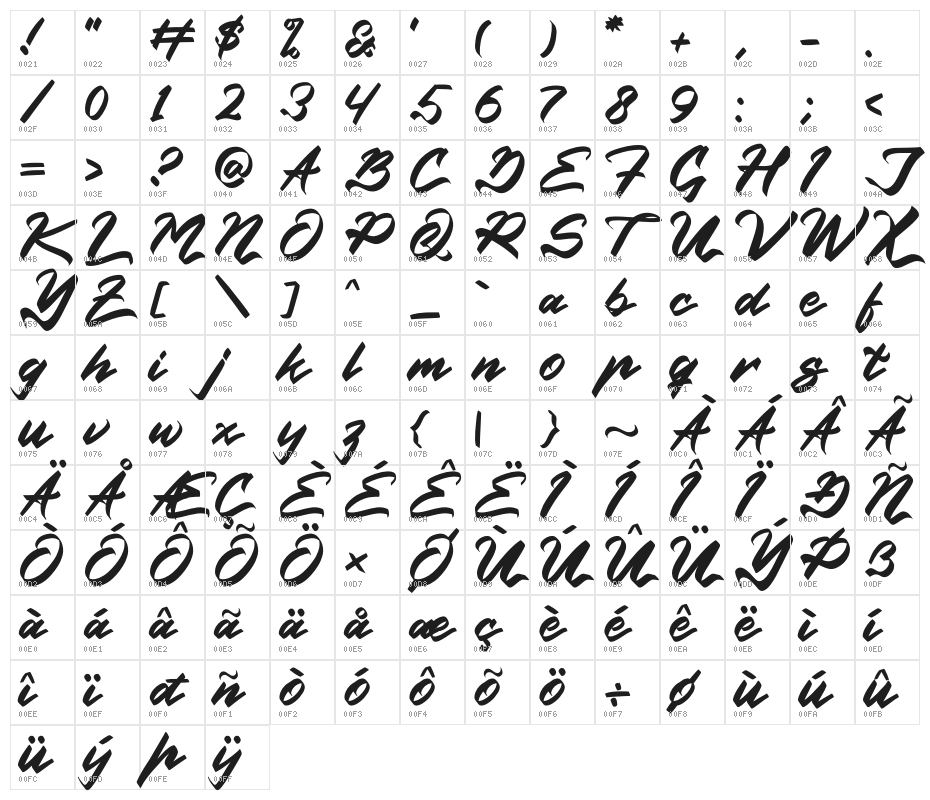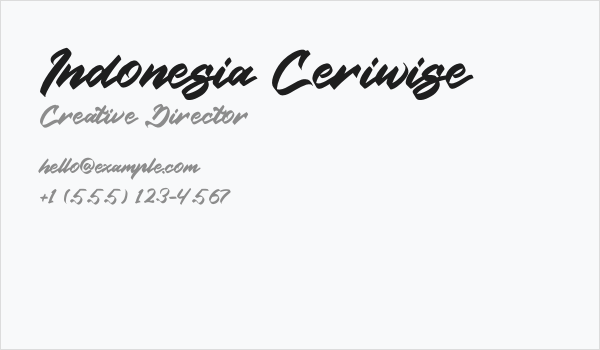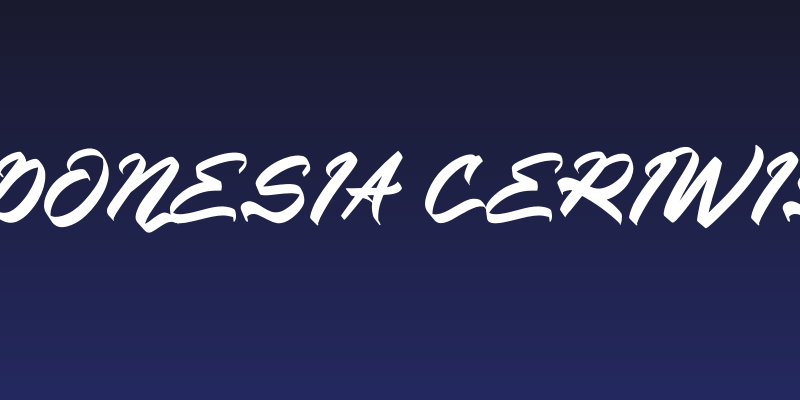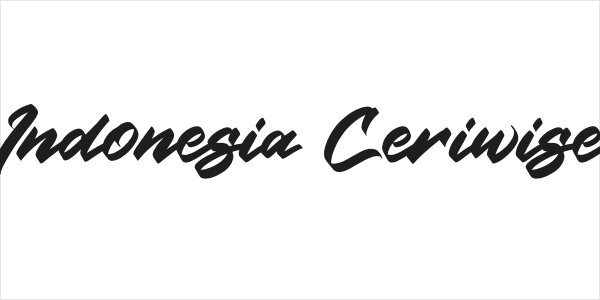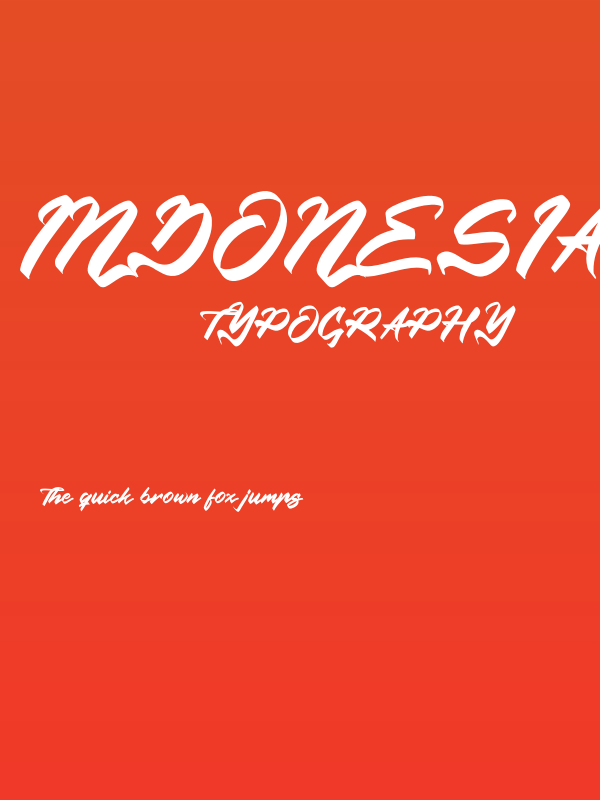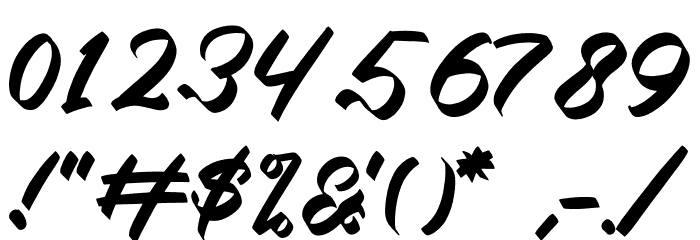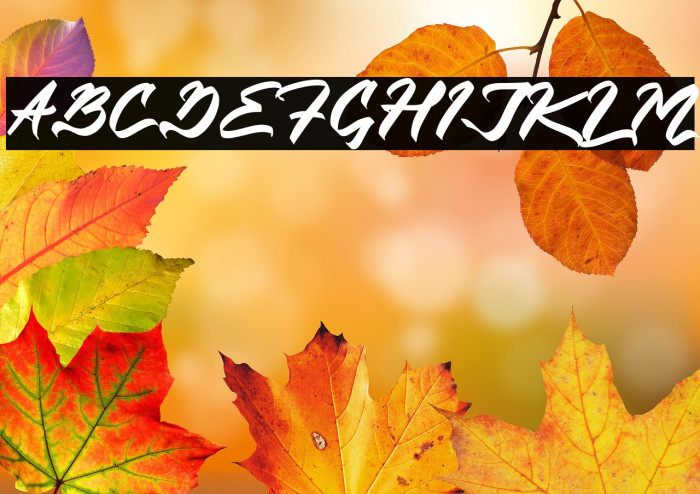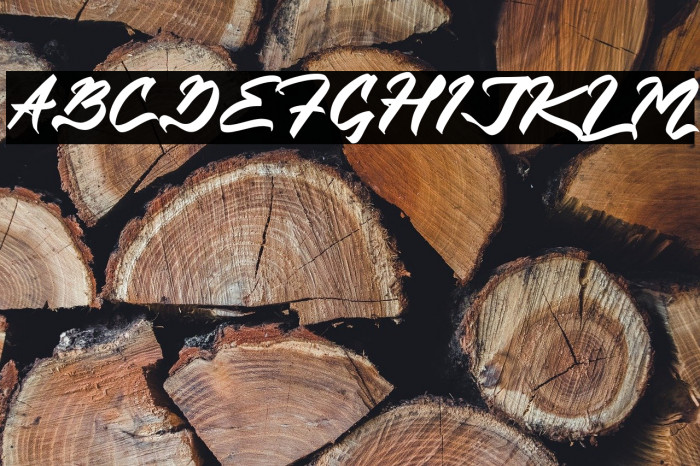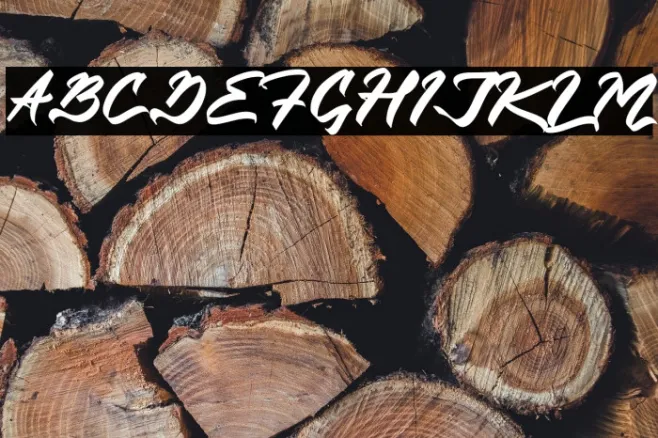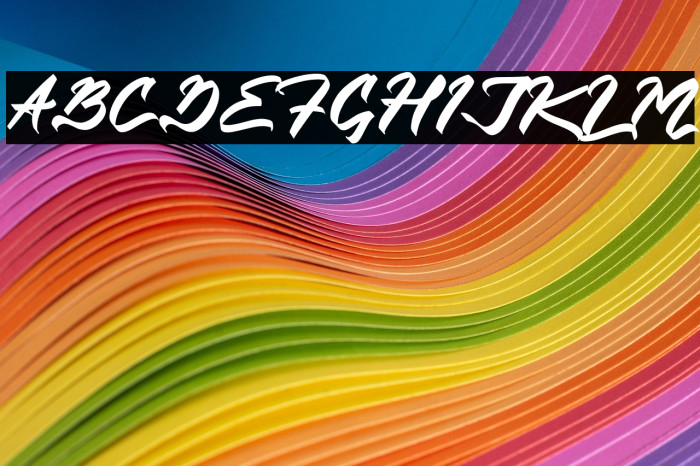
Indonesia Ceriwise Font
Indonesia Ceriwise Description
This font features a bold and dynamic script style with a strong presence. The letters are connected in a fluid manner, giving it a handwritten appearance. The strokes are thick and consistent, with a slight slant that adds to its energetic feel. The uppercase letters are prominent and slightly larger than the lowercase, maintaining a cohesive look across the alphabet. Numbers and special characters follow the same stylistic approach, ensuring uniformity. The overall design is expressive and eye-catching, suitable for making a statement.
| Proposed Projects | Ideal for branding, logos, invitations, and headlines where a personal and impactful touch is desired. |